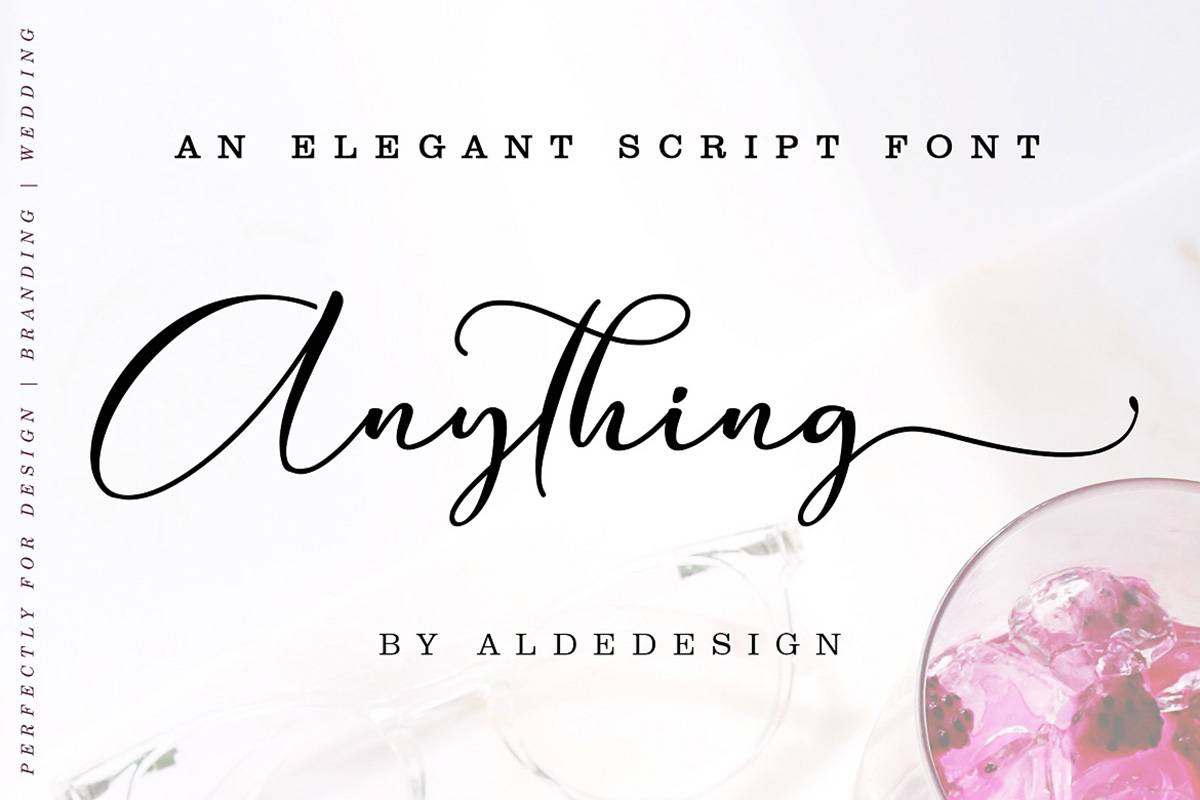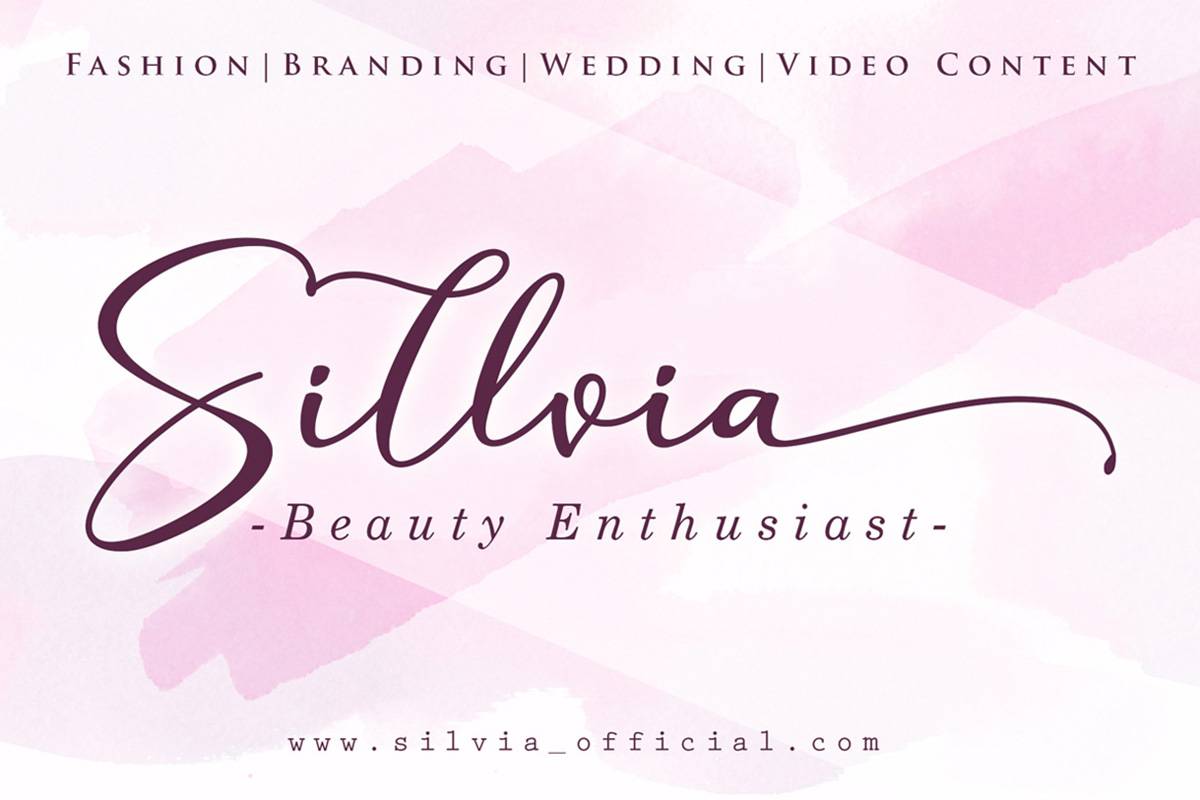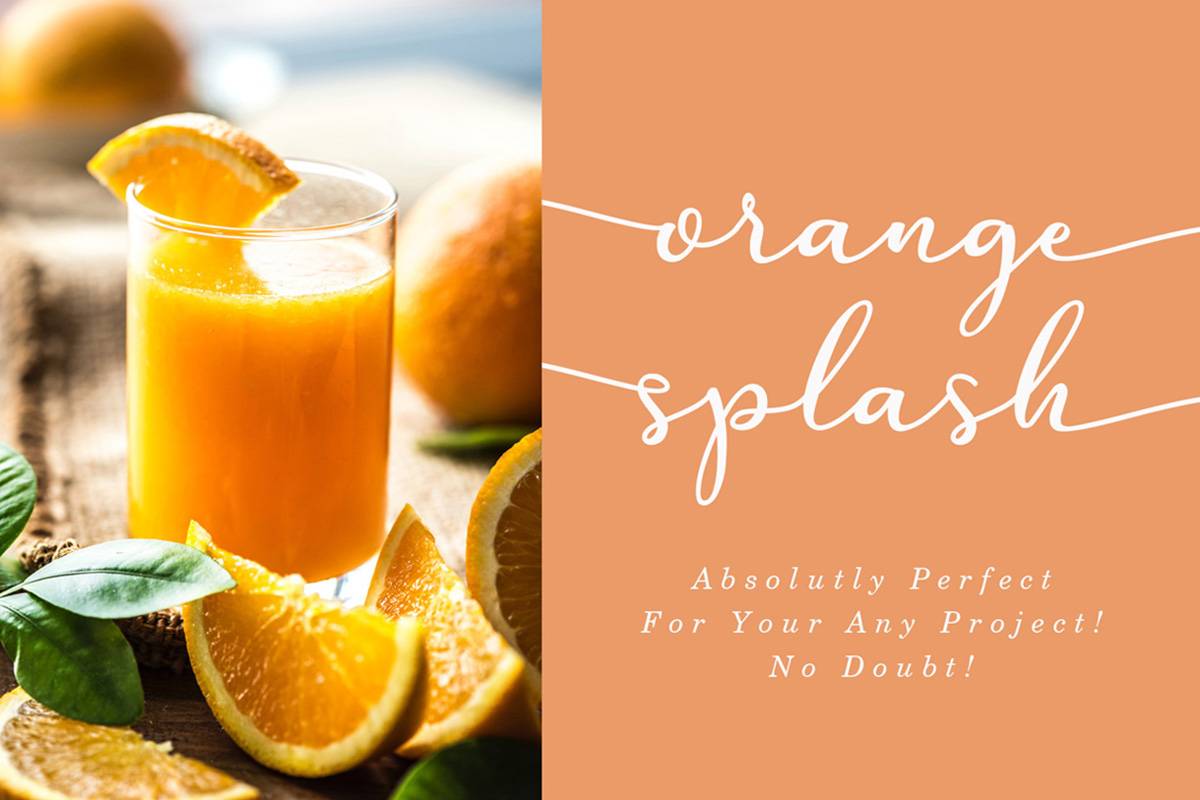
Anything Script Font is a delicate and elegant script typeface with a light, airy feel and smooth, flowing lines. Its slender strokes and graceful loops make it ideal for stylish invitations, branding, and any design that needs a touch of sophistication and charm. This font works beautifully in headlines or accent text, conveying a refined, artistic personality with a modern handwritten appeal.
Anything Script Font
About Anything Script Font
| Font family | Anything Script Font |
| Designer | Aldedesign 2019 (Alde Saputro) |